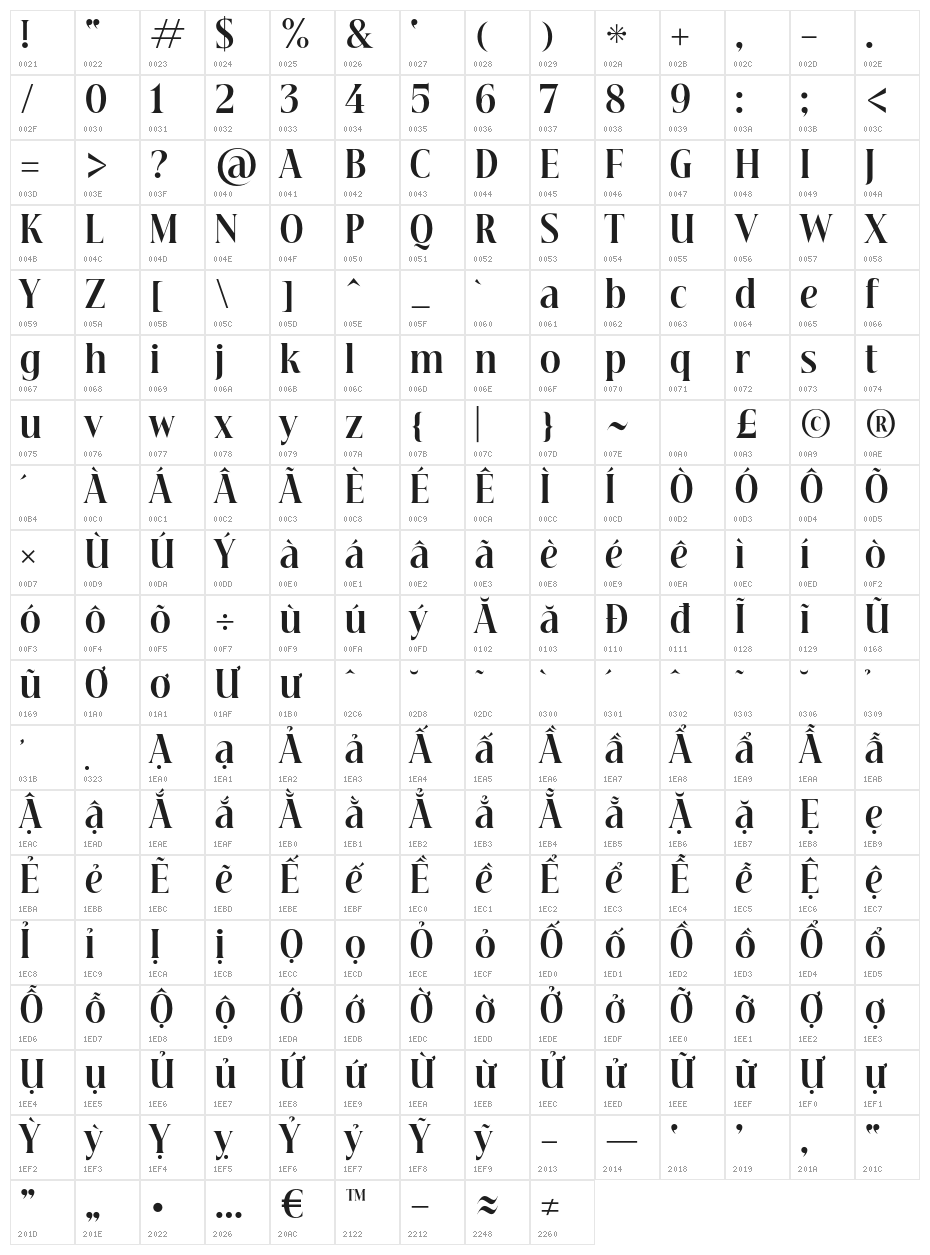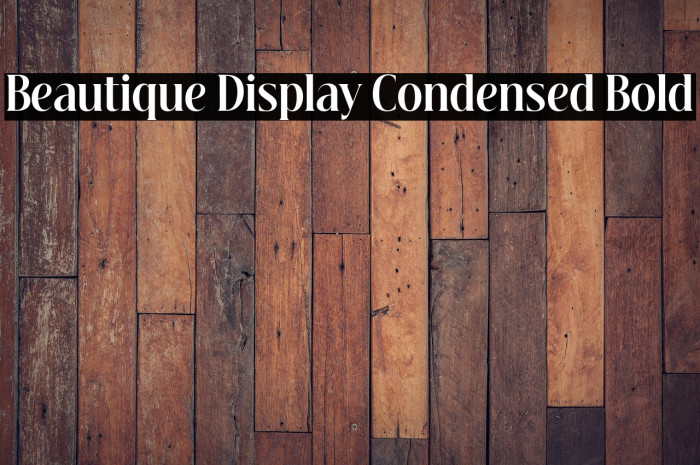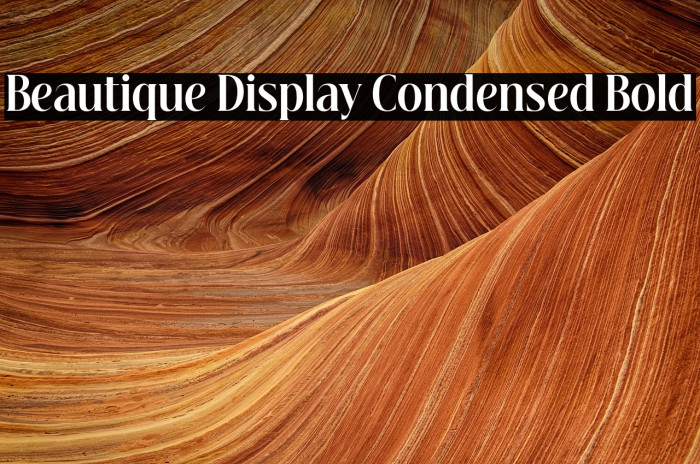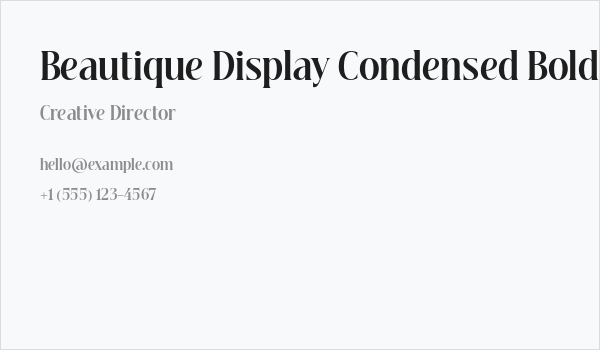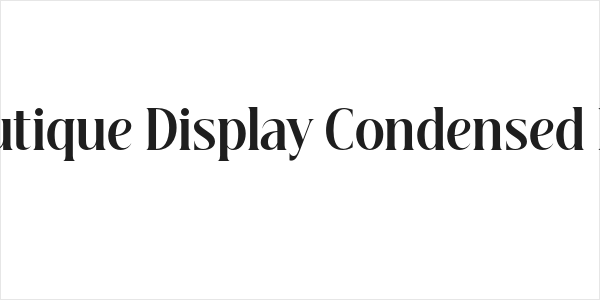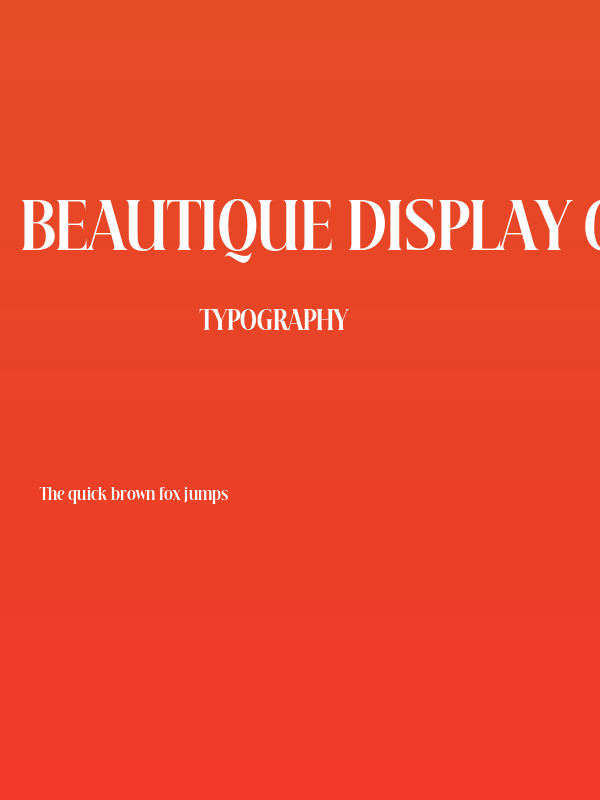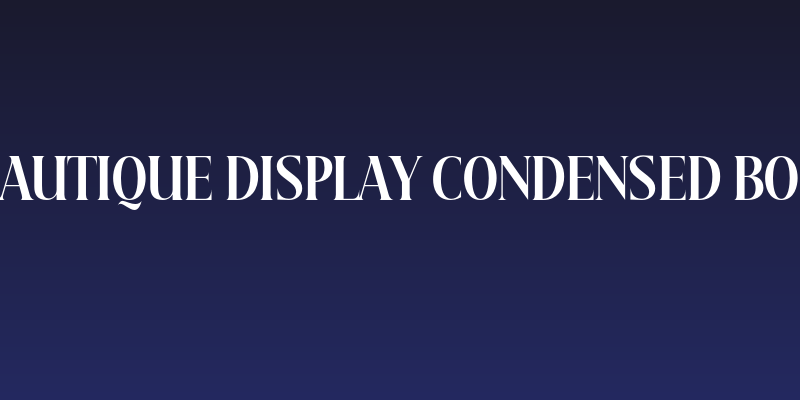
Beautique Display Condensed Bold Font
Beautique Display Condensed Bold Description
This font features a striking and elegant design with a condensed structure that emphasizes verticality. The characters exhibit high contrast between thick and thin strokes, giving it a sophisticated and dynamic appearance. The serifs are sharp and pronounced, adding a touch of classic elegance while maintaining a modern feel. The uppercase letters are tall and commanding, while the lowercase letters are more rounded and approachable, creating a balanced and versatile typeface. The numerals and special characters are designed with the same attention to detail, ensuring consistency across all glyphs.
| Proposed Projects | Ideal for luxury branding, fashion magazines, editorial headlines, and elegant invitations. |